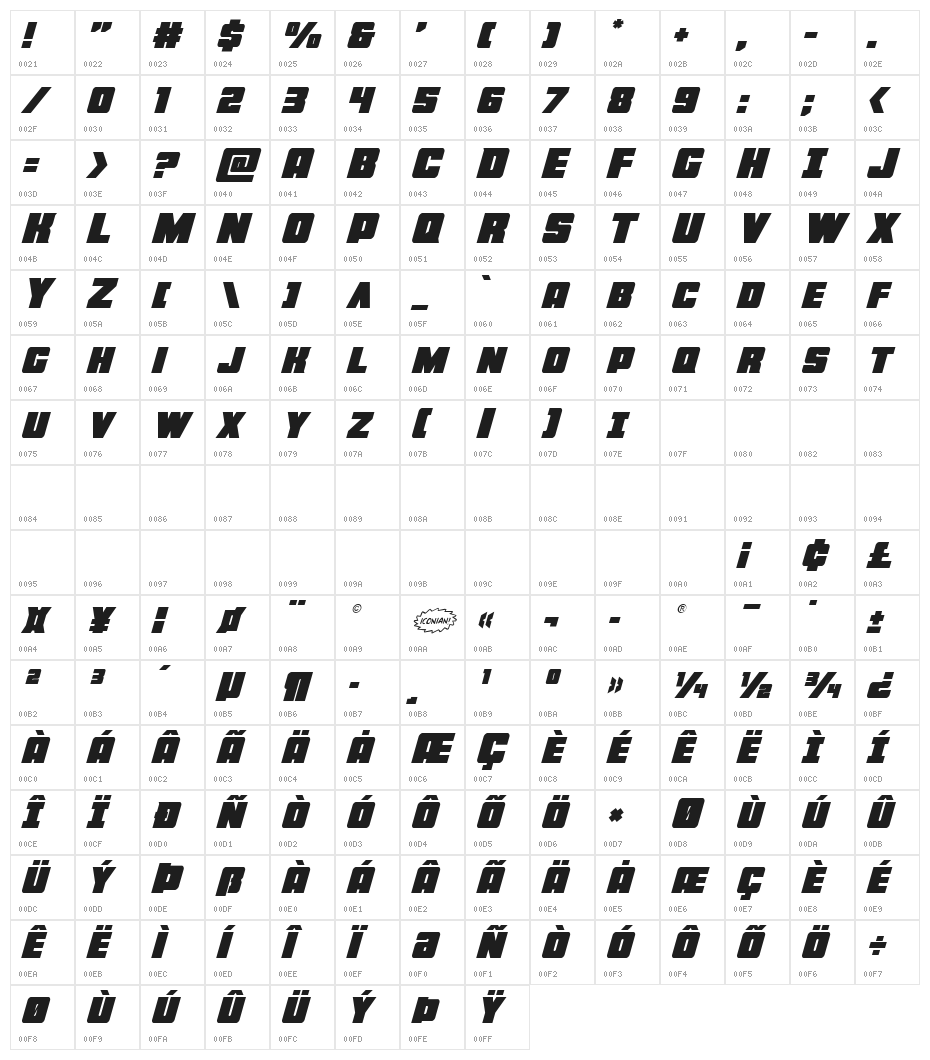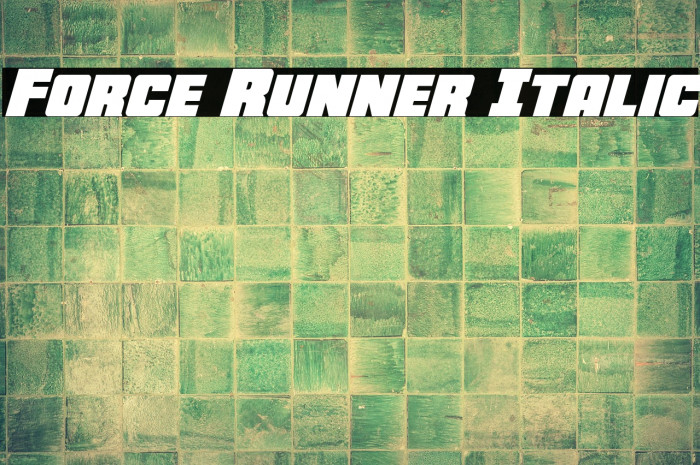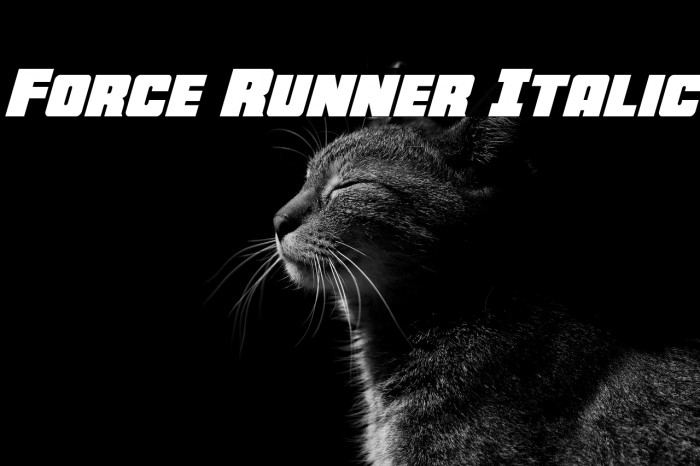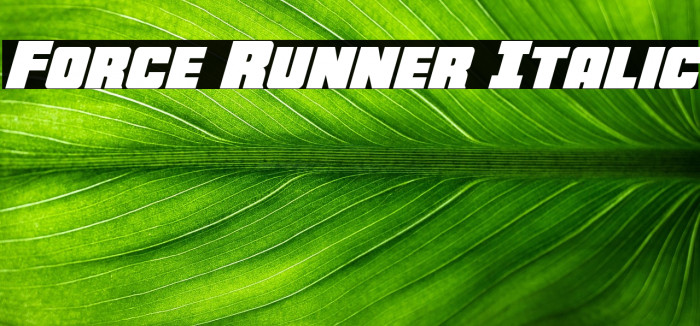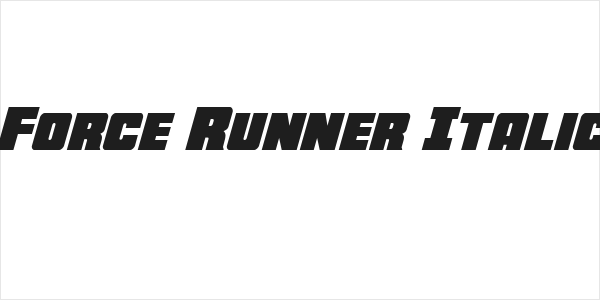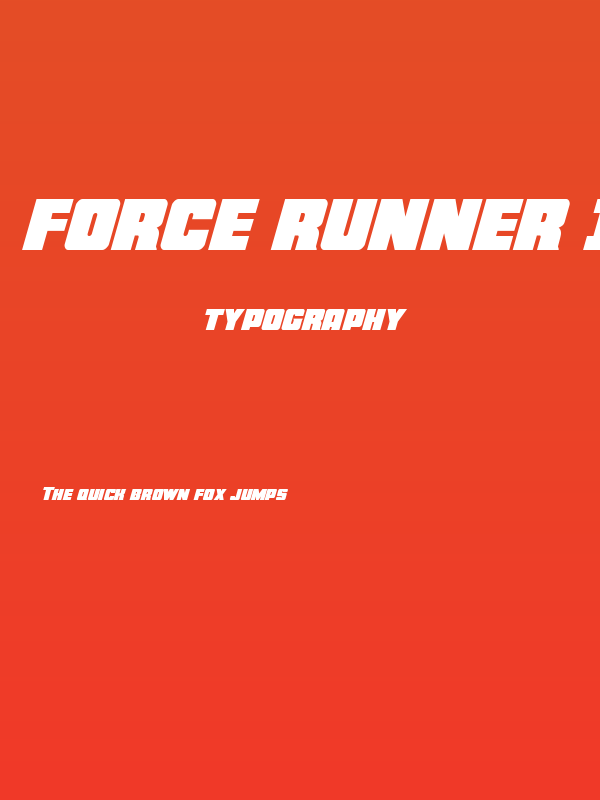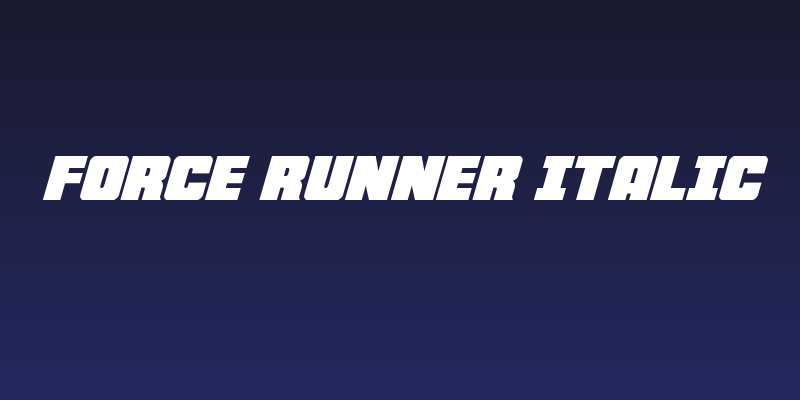
Force Runner Italic Font
Force Runner Italic Description
This font features a bold and dynamic style with a strong italic slant, giving it a sense of motion and energy. The characters are blocky and robust, with a distinct geometric influence that enhances its modern appeal. The uppercase letters are particularly striking, with sharp angles and a consistent thickness that conveys strength and stability. The lowercase letters maintain the same boldness, ensuring readability while preserving the font's unique character. Numbers and special characters are designed to match the overall aesthetic, making them ideal for impactful displays.